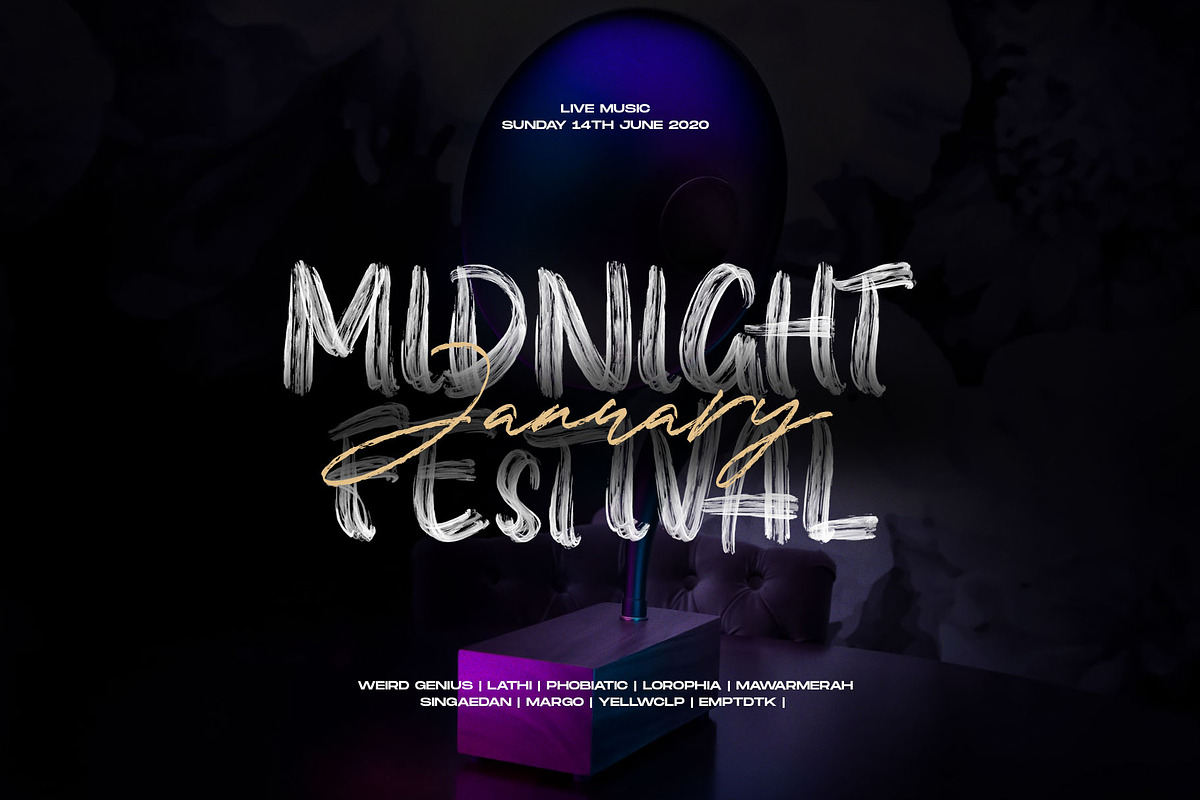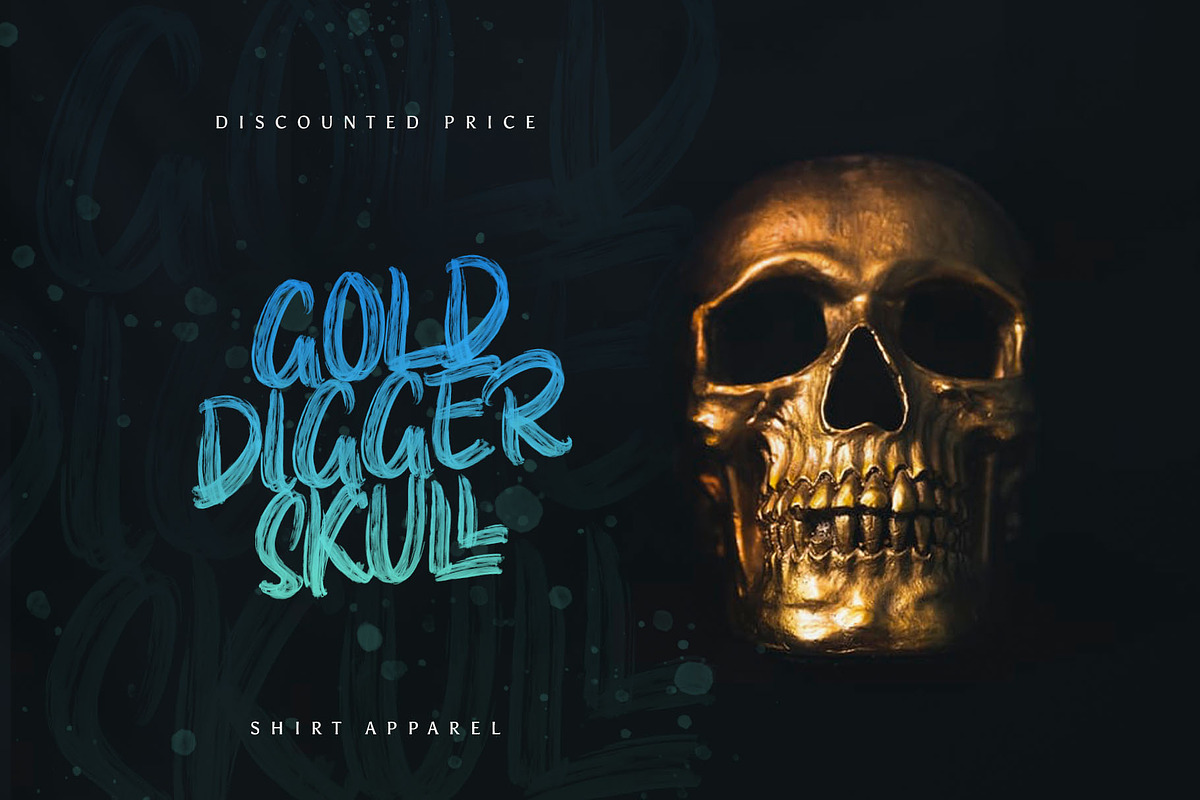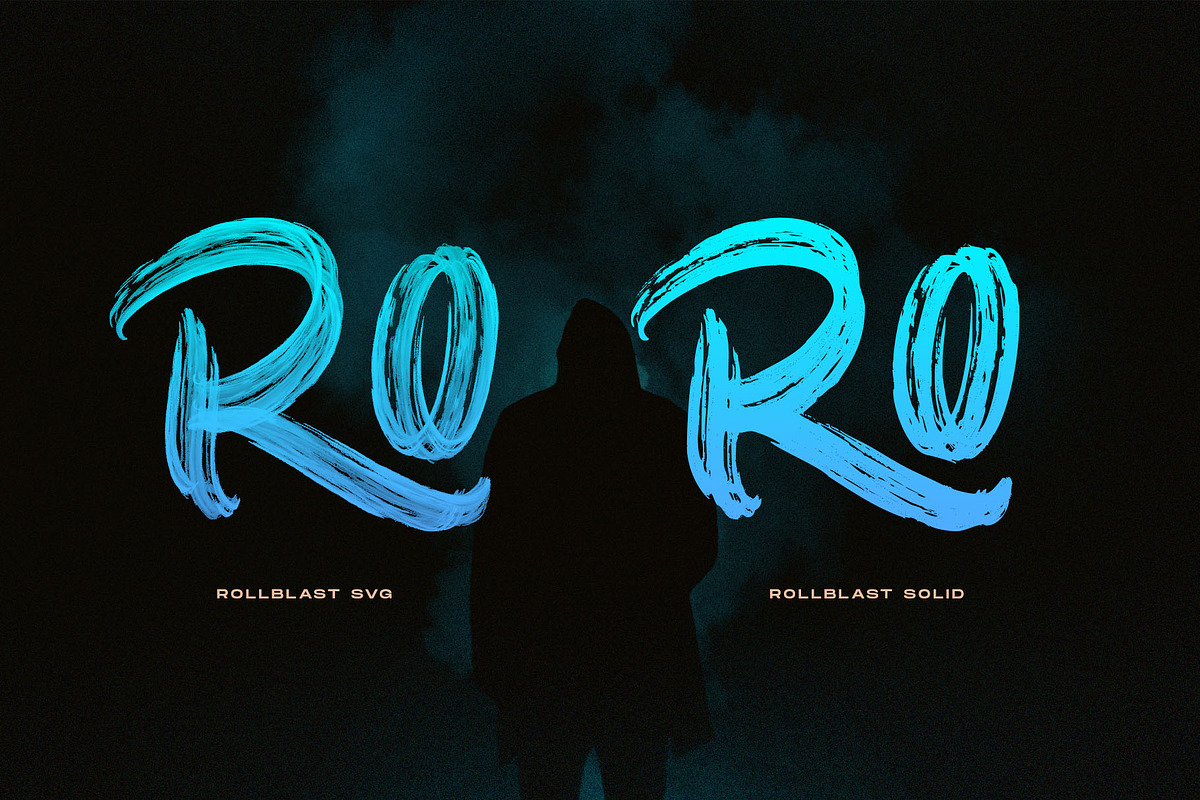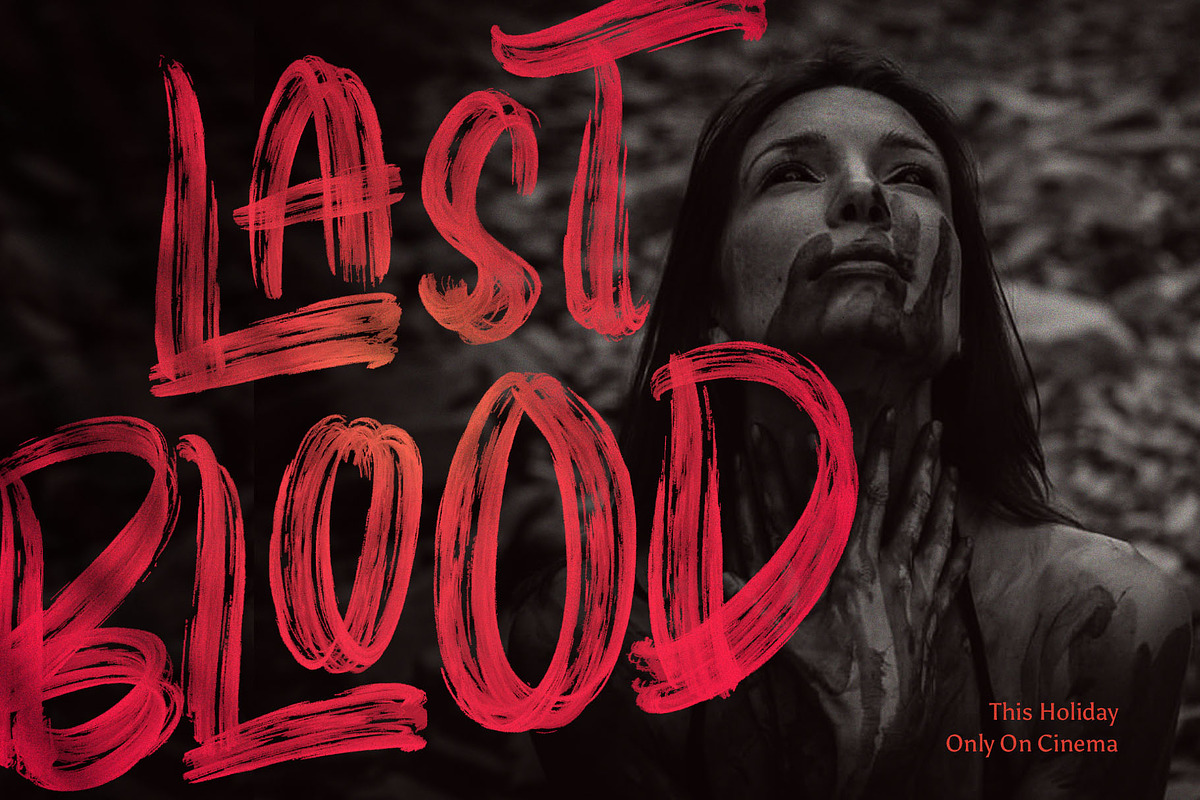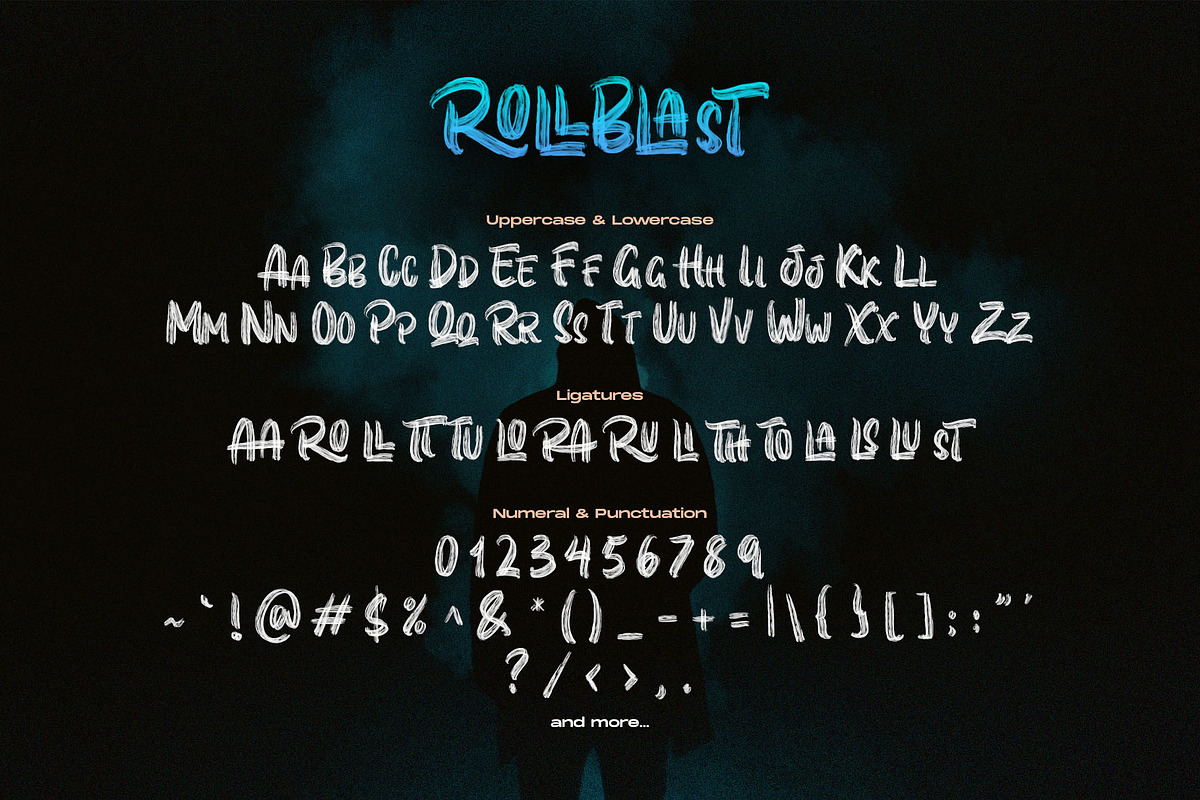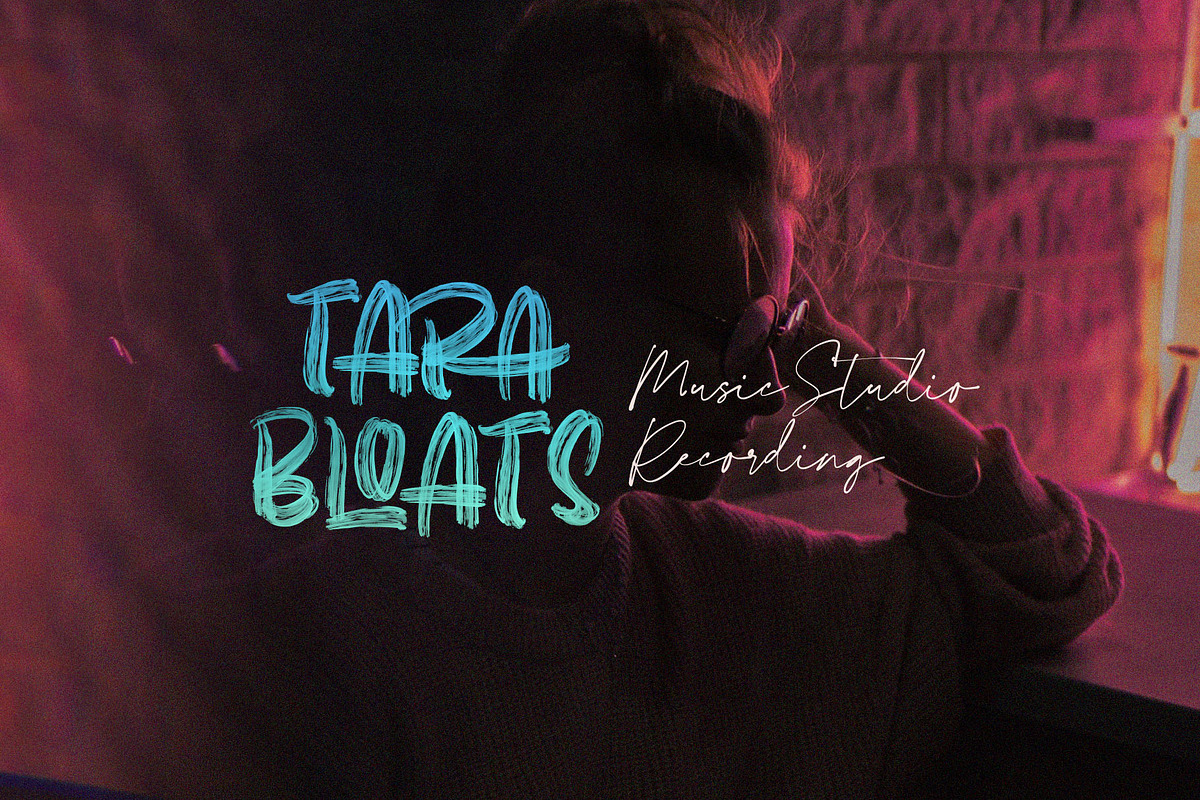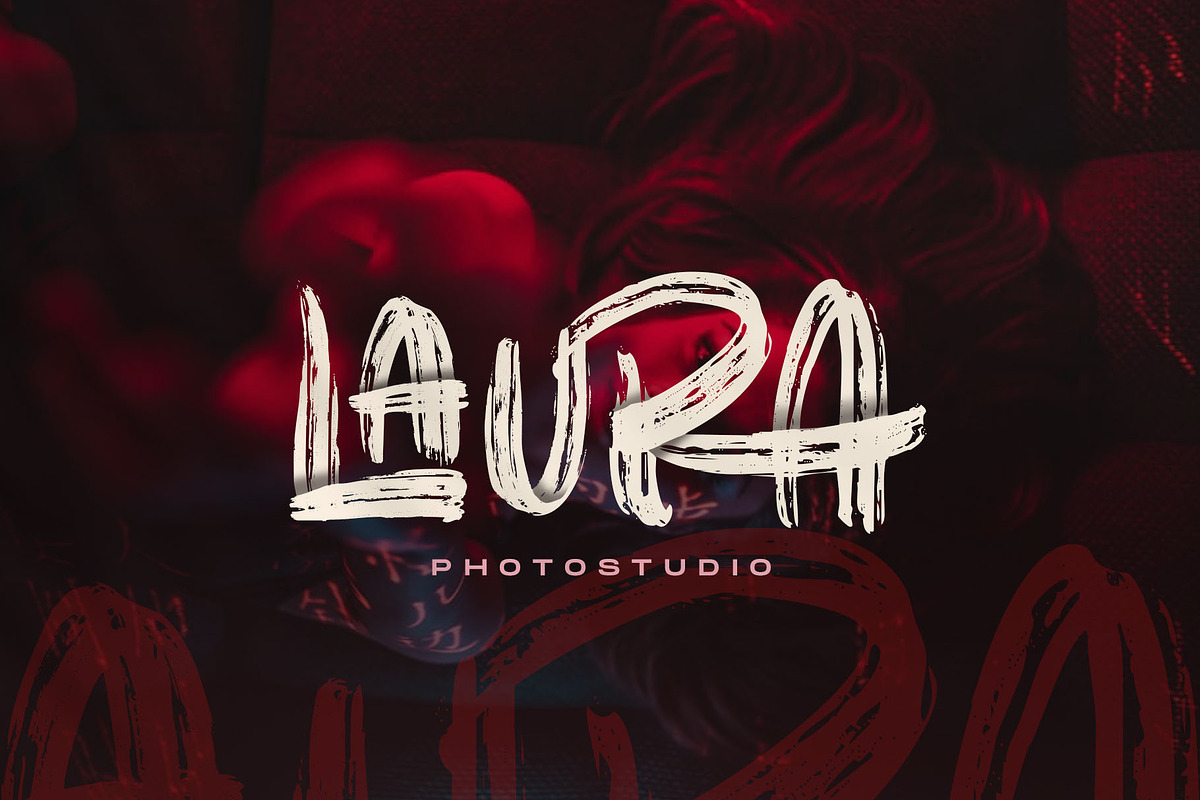
ROLLBLAST - Display Font
Hi there! Meet our latest display font ROLLBLAST comes with ligatures make your own unique stunning designs. The modern hand brush font, a supercharged, street-wise brush font bursting with energy. With extra attention to quick strokes and sharp details. Each character was carefully brushed so the textured comes like real.
ROLLBLAST SVG - A realistic texture hand brused font comes with Standard Characters, Punctuation, Numerals. And other Glyphs variation of the OpenType features such as Ligatures. Accessible in the Adobe Illustrator and adobe indesign Glyphs panel, or under Stylistic Alternates in the Adobe Photoshop OpenType menu. This format requires Photoshop CC 2017 or Illustrator CC 2018 (or newer).
ROLLBLAST Solid - Basically includes the same as above, but a vectorised, normal version for people who are unable to use the SVG version but still want to use the font.
ROLLBLAST - Display Font by Masanis fits naturally into Branding, posters, packaging, typography.